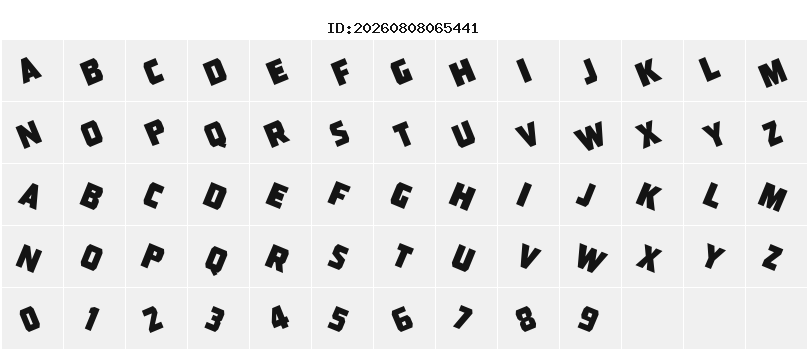
• Font Name: Pressboard Jumbled JL
• Designer: Jeff Levine, from a Ray Larabie original
• Manufacturer: Jeff's Fonts & Dingbats
• Description: A "jumbled" type of font. Upper case leans left, lower case leans right. Numbers alternate.
Pressboard Jumbled JL.ttf is a modern, elegant sans-serif font designed for ultimate readability and visual harmony. Perfect for branding, headlines, web design, and print materials.